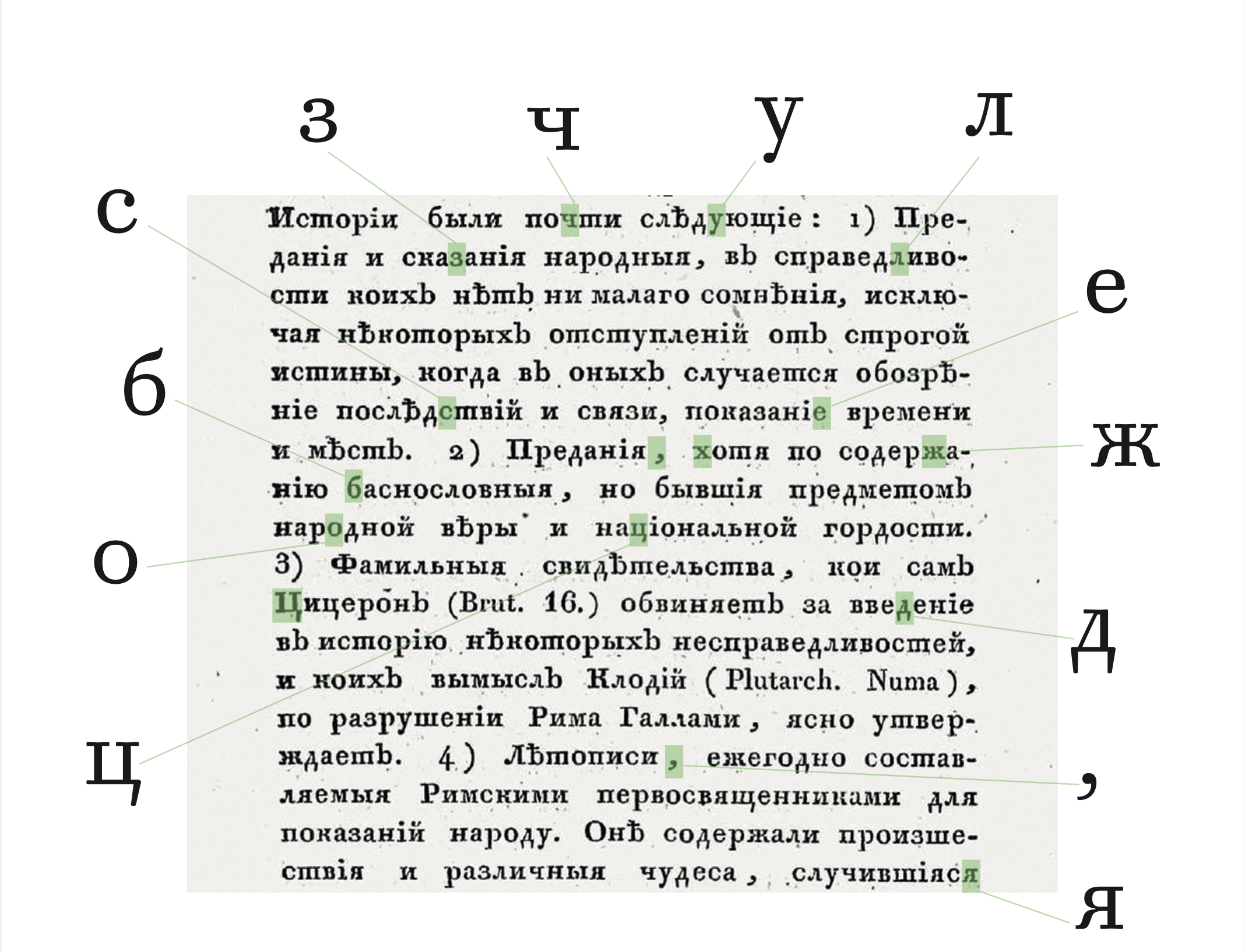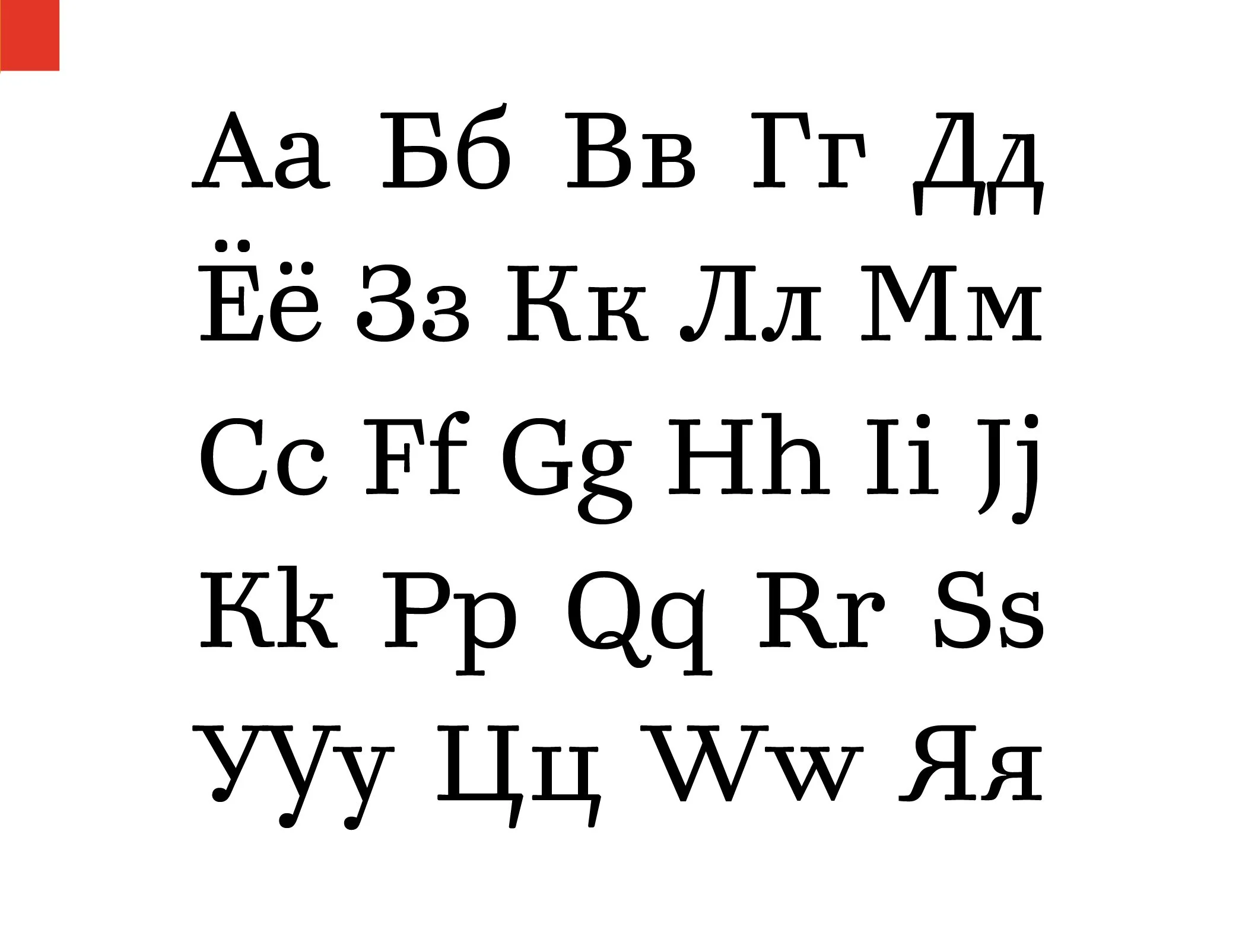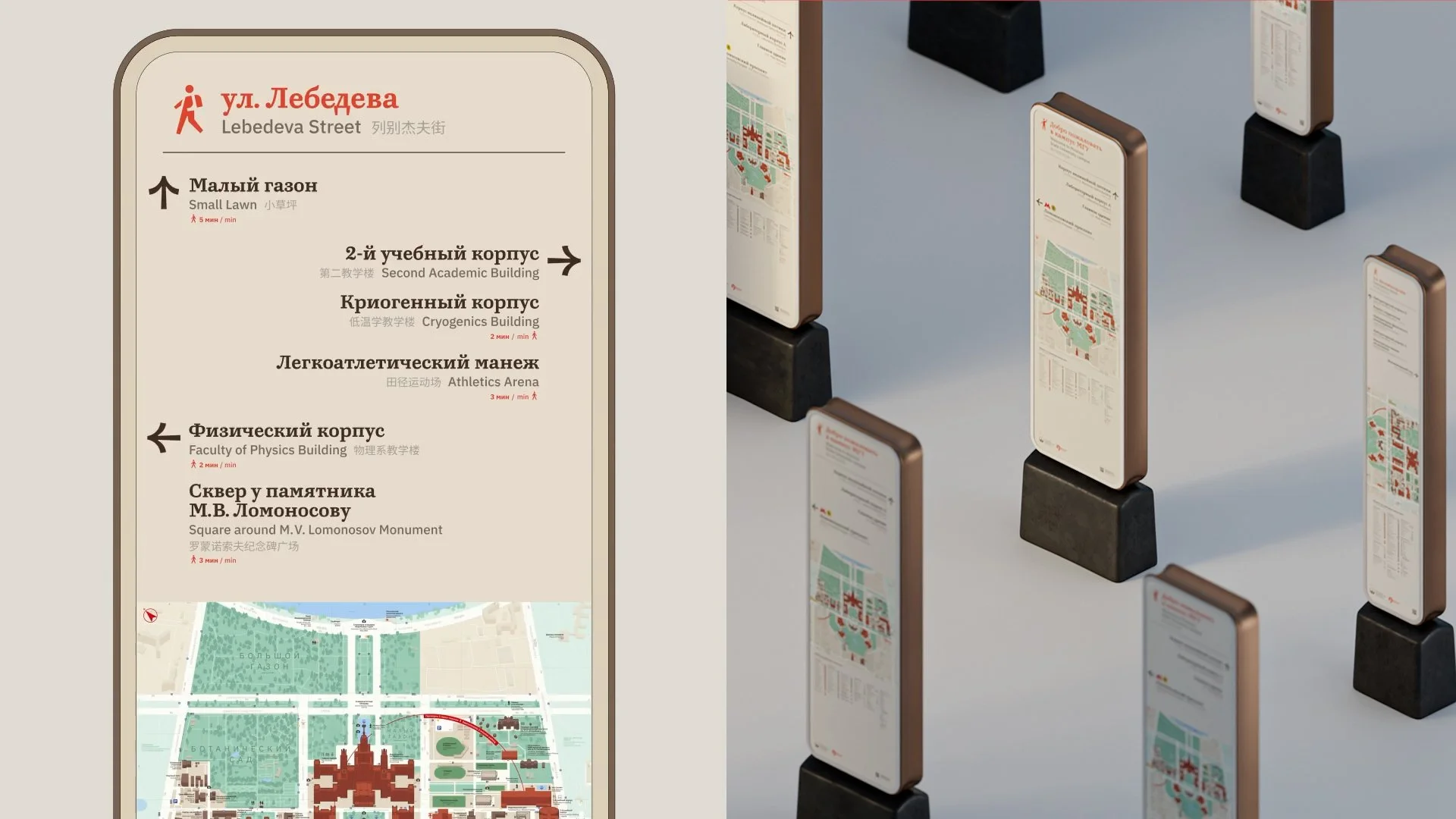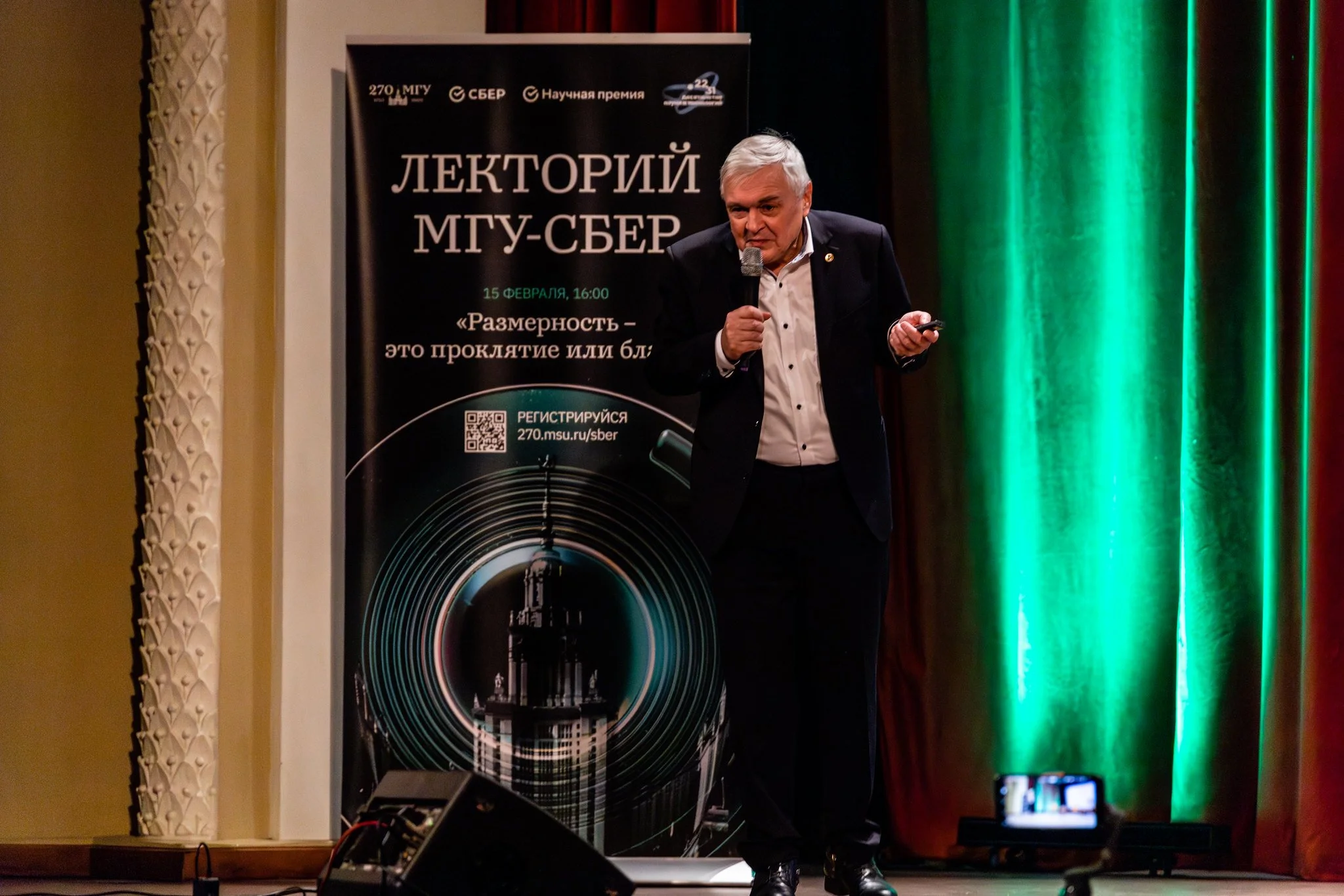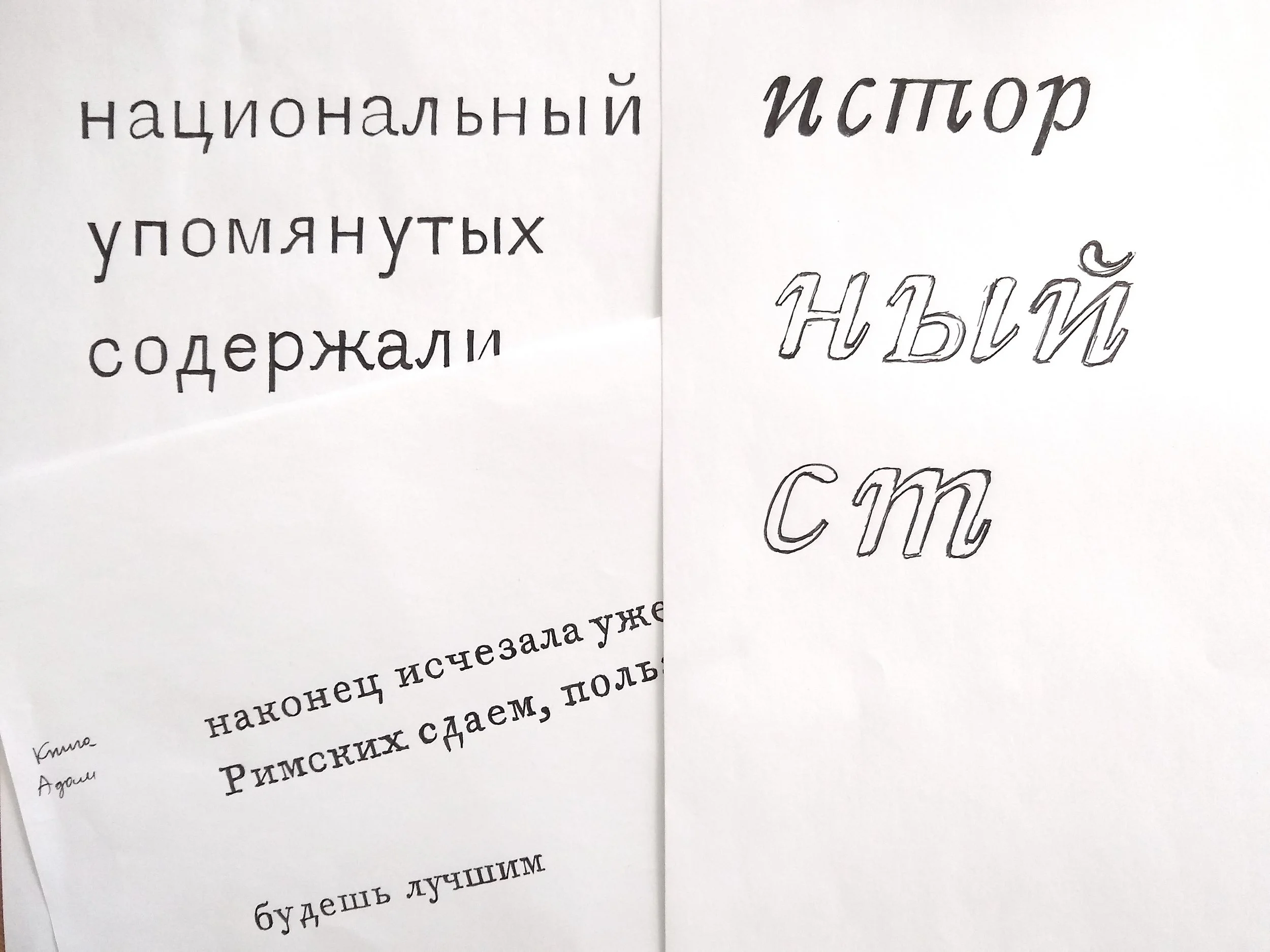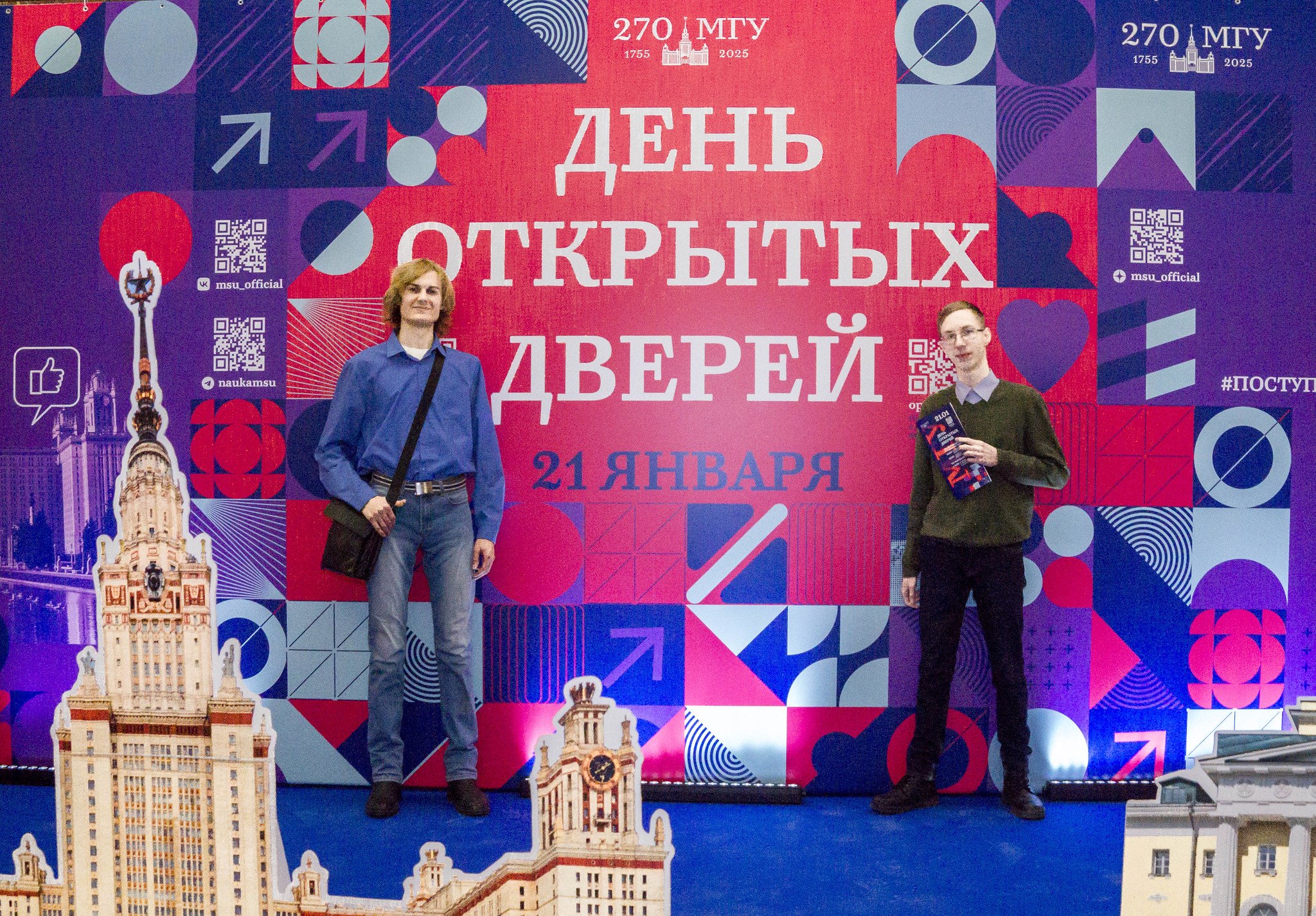
Moscow University. 2021
The typeface was commissioned for the new visual identity of Moscow State University, offering a contemporary interpretation of the early 19th century University typefaces.
Vera started with extensive research into type specimens and books printed by the Moscow University Press from the time of the University’s foundation and throughout the 19th century, seeking the best text type to serve as the basis for the new typeface and the logotype.
A group of similar fonts used for typesetting among others at the University in 1830s and first seen in the font catalogue from 1826, proved to be a perfect starting point for the University’s new and highly authentic typographic identity.
The University regained its typographic voice!